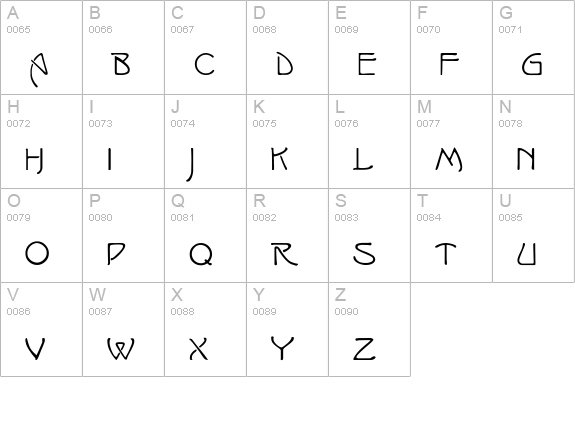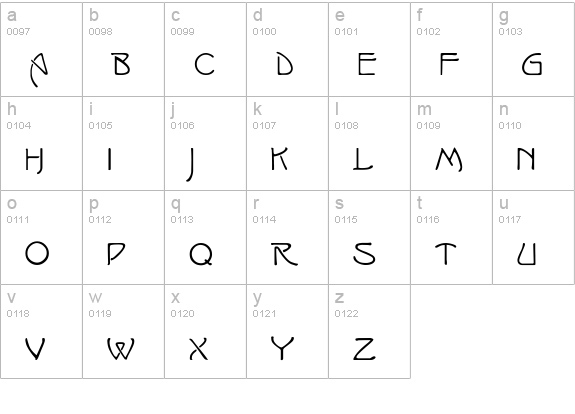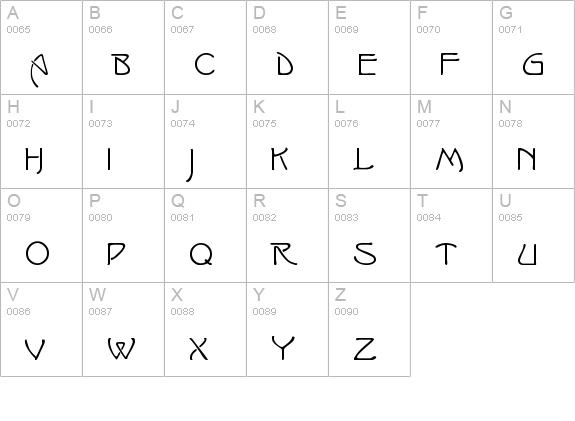
Isabelle Font Details
Isabelle font is a stunning typeface that exudes elegance and sophistication. With its graceful curves and delicate strokes, it adds a touch of refinement to any design project. This font is not only visually appealing but also incredibly versatile, making it suitable for various applications, such as logos, wedding invitations, and editorial designs. What sets Isabelle font apart is that it is free. Yes, you heard that right – this exquisite typeface can be downloaded for free at FontsMarket.com. Whether you are a professional designer or someone looking to add a touch of beauty to their personal projects, Isabelle font is a fantastic choice that won't break the bank. Featuring a wide range of characters, including uppercase and lowercase letters, numerals, and punctuation marks, Isabelle font offers endless possibilities for creative expression. Its clean and legible design ensures readability, even at smaller sizes, making it ideal for both print and digital mediums. The versatility of Isabelle font is showcased through its ability to adapt to different styles and moods. Whether you are aiming for a modern and sleek look or a vintage-inspired design, this font effortlessly adapts to suit your needs. Its timeless appeal ensures that it will remain a classic choice for years to come. In addition to its aesthetic appeal, Isabelle font is also easy to work with. It is compatible with various design software and can be easily integrated into your existing projects. Its flexibility allows for seamless incorporation into any design workflow, saving you time and effort. So why wait? Enhance your design projects with the beauty of Isabelle font, freely available to download at FontsMarket.com. With its elegance, versatility, and affordability, this font is a must-have for any designer or creative individual. Embrace the sophistication and charm of Isabelle font today and elevate your designs to new heights.